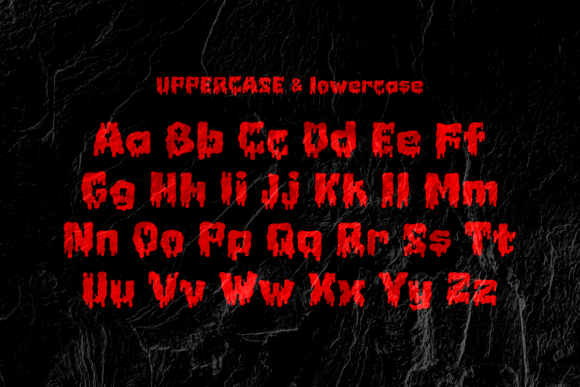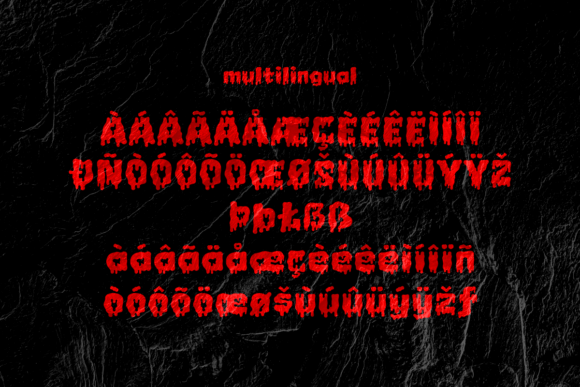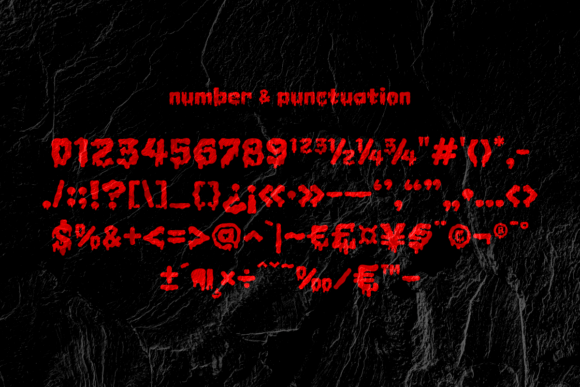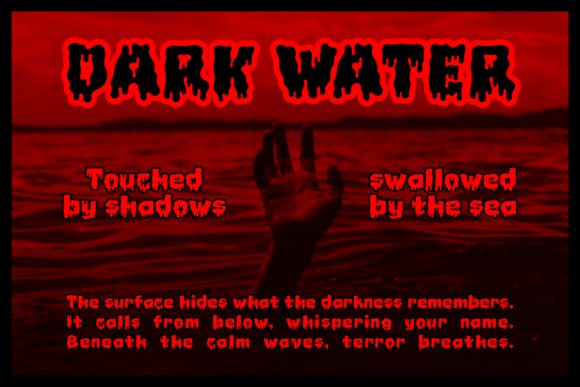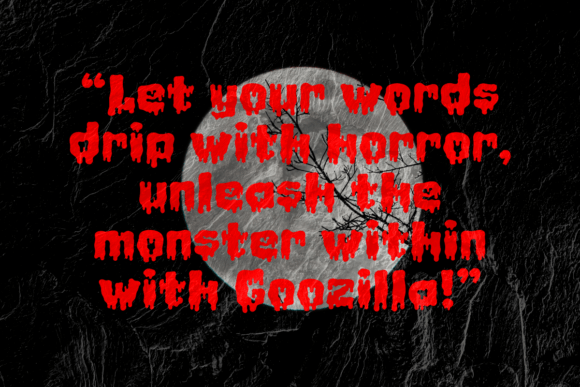
Meet Goozilla: The Bold and Gooey Display Font That Oozes Personality!
Are you tired of using the same old fonts in your designs? Look no further! Introducing Goozilla, a unique and bold display font that combines melting textures and creepy drips to create a perfect balance between fun and fright. Inspired by the playful chaos of monster movies and vintage horror posters, Goozilla brings a slimy, handmade touch to your designs that will make your text scream for attention.
A Font That Embodies Playful Chaos
Goozilla is not just a font – it’s an experience. Imagine a world where monster movies and vintage horror posters come to life, and the typography is just as playful and chaotic as the creatures on the screen. That’s what Goozilla embodies. With its bold and gooey texture, this font is perfect for designers who want to add a touch of whimsy and fun to their work.
Perfect for Spooky and Grunge Designs
Whether you’re designing for Halloween, horror comics, children’s spooky books, or grunge streetwear, Goozilla is the perfect font for you. Its unique texture and drips will add a level of eeriness and playfulness to your designs that will capture the attention of your audience. Imagine using Goozilla to create eye-catching posters, stickers, or even t-shirts that will make people scream with delight.
A Slimy, Handmade Touch
One of the standout features of Goozilla is its slimy, handmade touch. The font’s texture is reminiscent of melted wax or gooey slime, giving it a truly unique and organic feel. This texture is perfect for designers who want to add a touch of handmade charm to their work. Whether you’re creating digital or print designs, Goozilla will give your text a tactile feel that will make it stand out.
Key Features of Goozilla
- Bold and Gooey Texture: Goozilla’s unique texture is perfect for adding a touch of whimsy and fun to your designs.
- Creepy Drips: The font’s creepy drips add a level of eeriness and playfulness to your designs.
- Slimy, Handmade Touch: Goozilla’s texture gives it a truly unique and organic feel.
- Perfect for Spooky and Grunge Designs: Whether you’re designing for Halloween, horror comics, or grunge streetwear, Goozilla is the perfect font for you.
How to Use Goozilla in Your Designs
Using Goozilla in your designs is easy! Here are a few tips to get you started:
- Pair it with a Simple Font: Pair Goozilla with a simple font to create a striking contrast.
- Use it for Headlines: Goozilla is perfect for headlines and titles, where its bold and gooey texture can really shine.
- Experiment with Colors: Goozilla looks great in bold and bright colors, but it also works well in muted and pastel colors.
In conclusion, Goozilla is a unique and bold display font that oozes personality. With its melting textures and creepy drips, it’s perfect for designers who want to add a touch of whimsy and fun to their work. Whether you’re designing for Halloween, horror comics, children’s spooky books, or grunge streetwear, Goozilla will make your text scream for attention. So why settle for a boring font when you can use Goozilla to make your designs stand out?